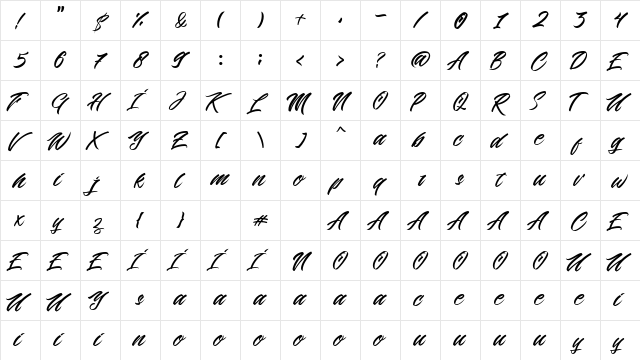
Beric Regular Font Preview
Beric Regular
Beric Regular Font Details
| Foundry | typotopia |
| Designer | typotopia |
Design Context for Beric Typeface
Beric is a composed and adaptable typeface that performs quietly and consistently across a wide range of design contexts.